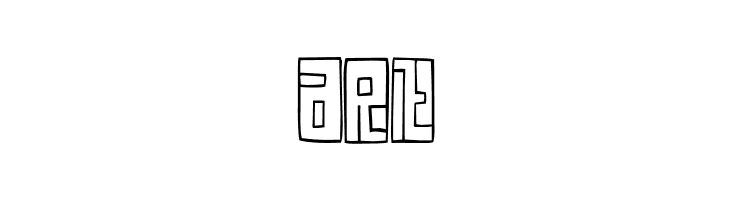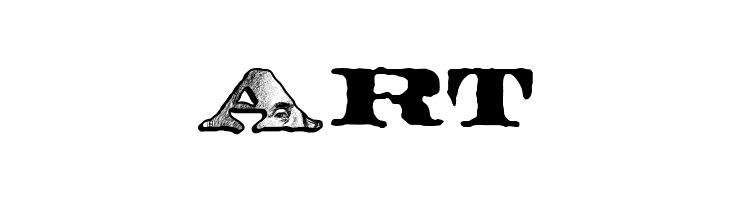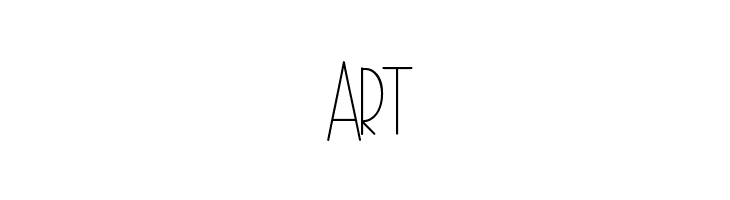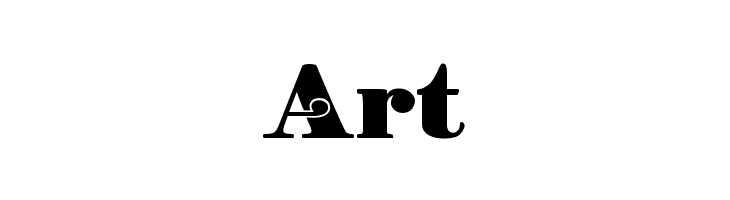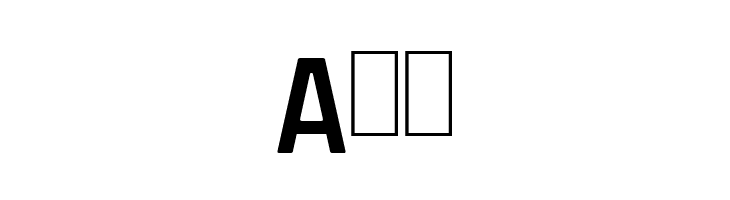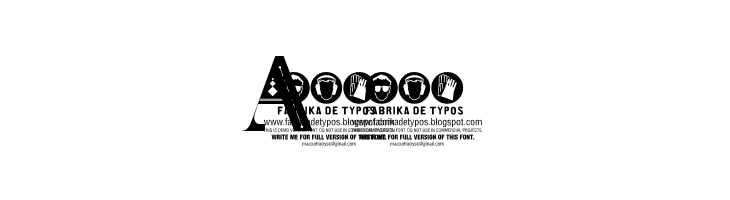
( Fonts by Marcio Hirosse /// Fabrika De Typos )
A decorative and whimsical font with intricate details and a vintage flair.
A bold, hand-drawn font with an edgy and dynamic style.
( Fonts by Mans Greback - www.mawns.com )
An elegant, decorative script font with intricate swashes and high contrast.
A bold, modern serif font with strong, thick strokes and pronounced serifs.
( Fonts by Renee Clayton )
A playful, hand-drawn font with striped characters and a whimsical style.
A tall, narrow font with a sleek, modern design and thin, evenly spaced characters.
( Fonts by Billy Argel Fonts ® )
A bold, decorative font with a vintage, distressed style and intricate detailing.